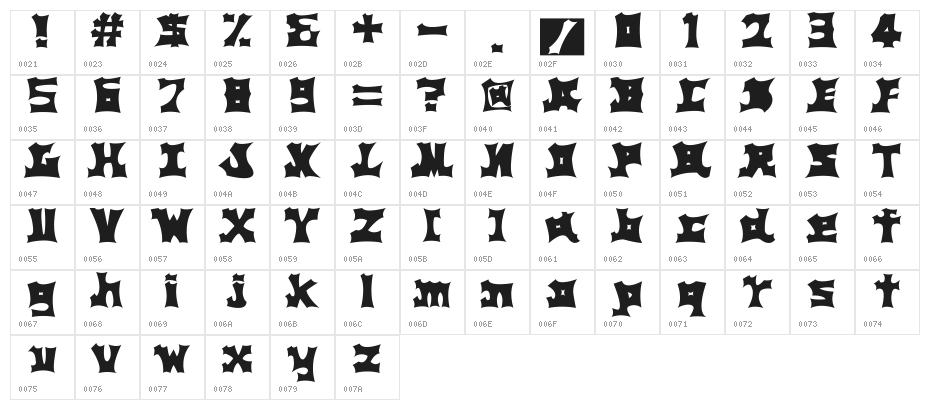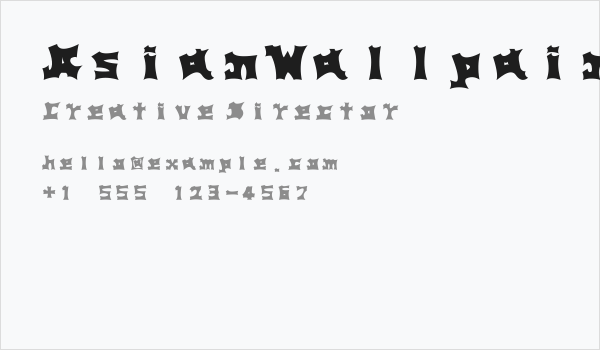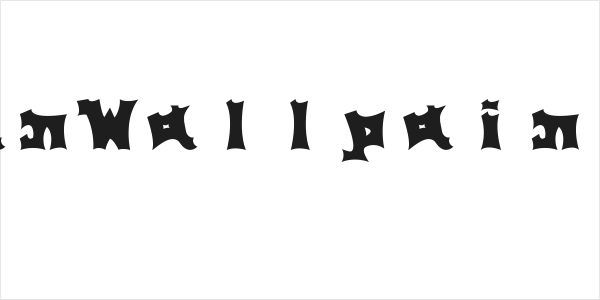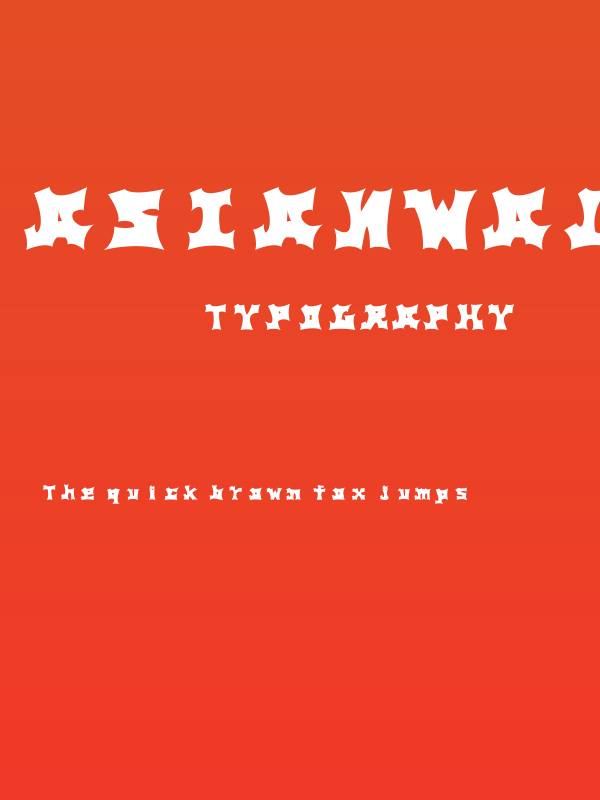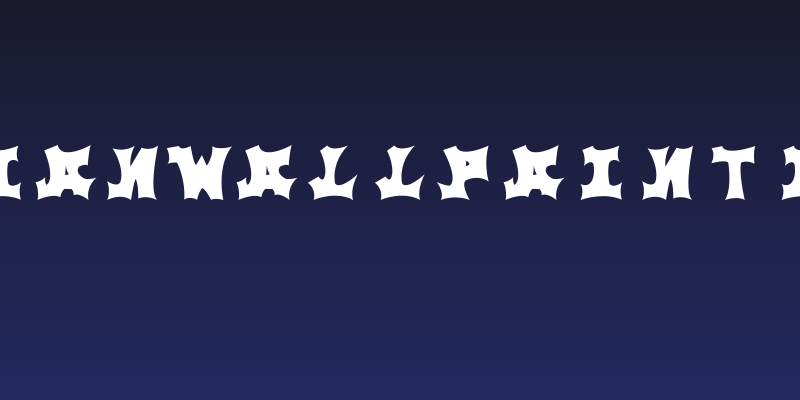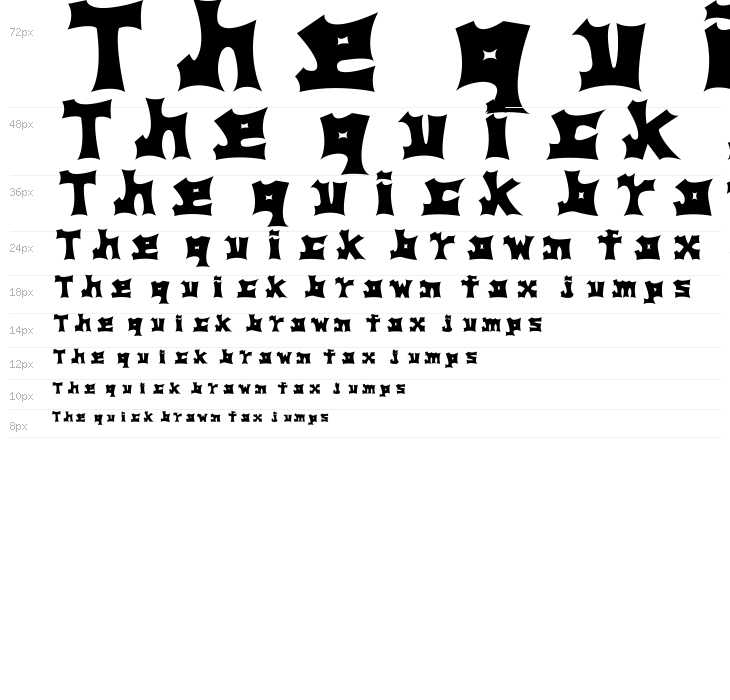
AsianWallpainting Font
AsianWallpainting Description
This font features a bold and dramatic style, reminiscent of traditional Asian art and calligraphy. Each character is crafted with thick, angular strokes that create a sense of strength and stability. The design incorporates sharp edges and pointed tips, giving it a distinctive and powerful appearance. The uppercase and lowercase letters maintain a consistent style, with a slight variation in size and form. Numbers and special characters are designed to match the overall aesthetic, ensuring a cohesive look across all elements. The font's unique style makes it ideal for projects that require a touch of cultural flair and artistic expression.
| Proposed Projects | Ideal for cultural posters, artistic branding, and themed event invitations. |